This month, the Indian Type Foundry is pleased to publish two new sans serif families for the Latin script. The first, Akhand Soft, is an extension to our popular Akhand series. Graphico, on the other hand, is a totally new design. Both families are display faces. Akhand Soft has the additional benefit of being usable sparingly in running text, while Graphico is a great choice for headlines. These could be headlines set online, embedded in an app, or put into traditional print. In terms of areas for best application, Akhand Soft is fine-tooled for use in corporate identity design, editorial design, and even signage systems.
Graphico
Graphico would even look great printed or etched into physical products. While Graphico’s design is quite extended, Akhand Soft’s letterforms are condensed. Although the two typefaces don’t look much alike, they share much in common. Both are drawn in mono-linear styles, and many of Akhand Soft’s letters are straight-sided (as are virtually all of Graphico’s).
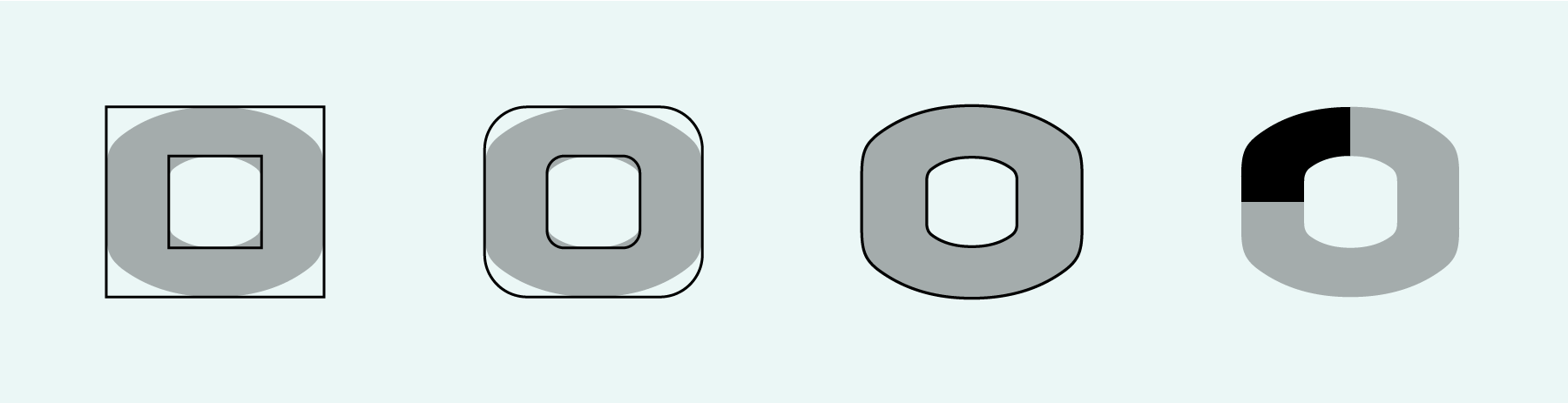
Graphico’s appearance is very wide. Its letterforms are industrial-looking; this feeling is enhanced by its characters’ square-sides. The typeface looks like the product of precision mechanics. It should be featured together with tech – either old tech like appliances or watches, or new tech like apps and laptop stands. The Graphico family offers six styles, ranging in weight from light to black. The black is really nice and chunky, and can easily be used as a stand-alone design. Each Graphico font includes 386 glyphs, and in terms of proportion, the Graphico design features short ascenders. While the descenders are not actually very long either, they look as if they might be – an interesting optical illusion. The fonts’ numerals are proportional lining figures.
Akhand Soft
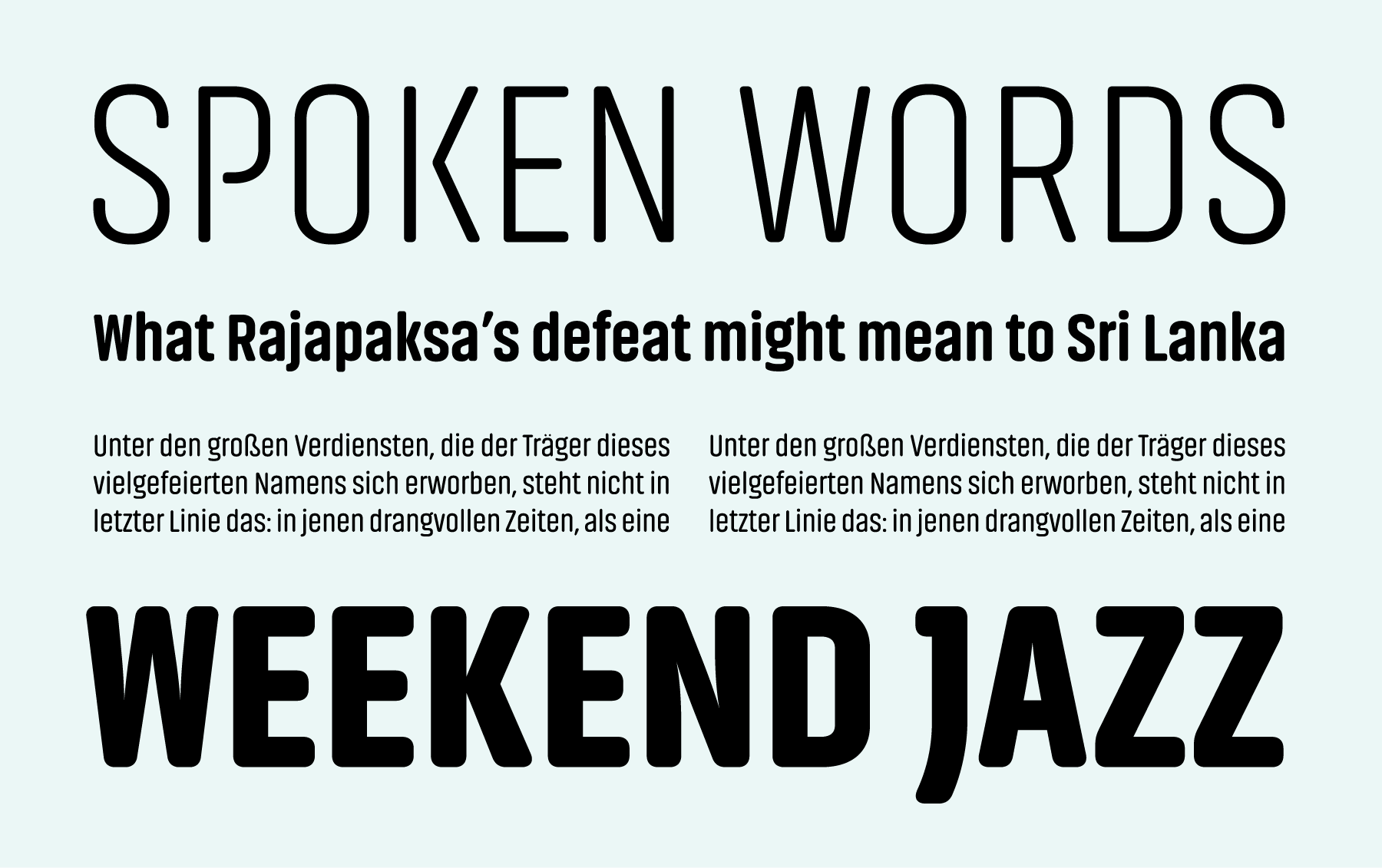
All of the corners of Akhand Soft’s characters have been rounded. This makes Akhand Soft a much more friendly and informal variant to the Akhand Latin family. Despite its having straight sides, not every aspect of Akhand Soft’s design is constructed. The curves in its modules, for instance, have all been optically corrected, removing the mechanical nature that could otherwise become too dominant. Akhand Soft’s modularity extends beyond the formal level, too: its design is systematic – not just regarding the number of languages and writing systems it supports, but also concerning the family’s weight compliments. Akhand Soft’s broad range of weights – eight weights, to be exact – makes combinations with a strong degree of contrast possible; the lightest and the heaviest styles may be mixed together to create powerful effects in your designs. Each font in the the family includes 390 glyphs.
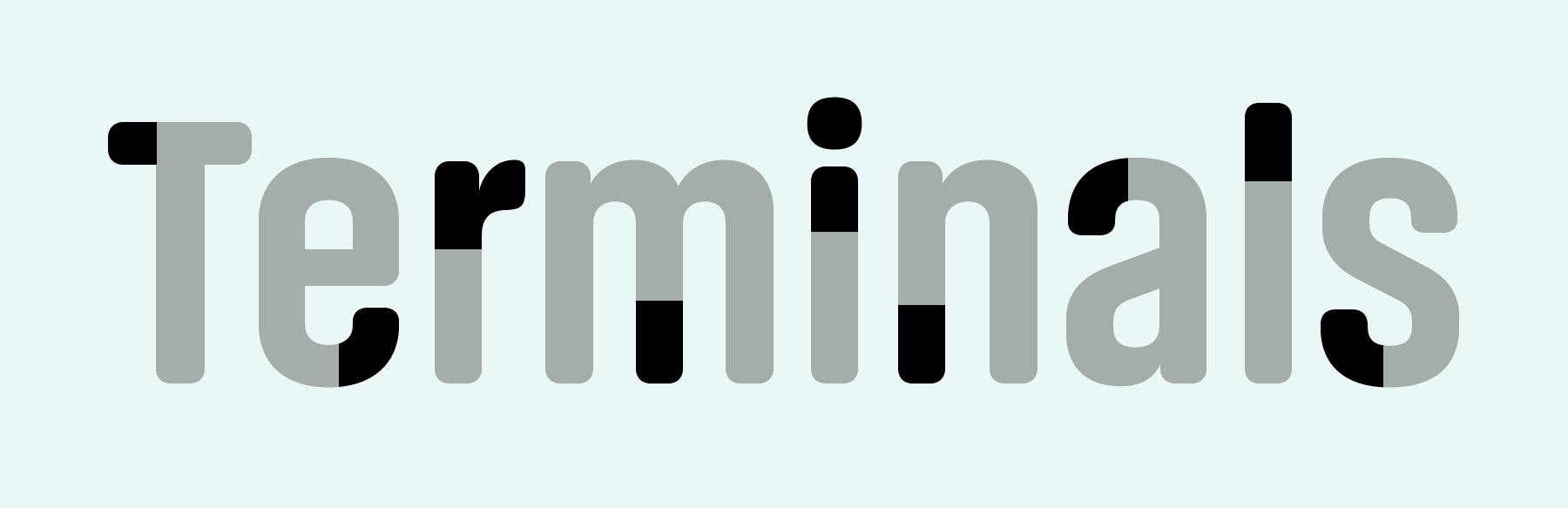
Akhand Soft is part of ITF’s Akhand super family, a series of compact monolinear fonts that currently supporting the Bengali, Devanagari, Latin, Malayalam and Tamil scripts. While the shapes used in each of the Akhand subfamilies are script-specific, they all share a similar dynamic. Elements that are typically full and sweeping have been made compact, and their verticals have been flattened. This ‘straightening out’ gives text set in the typefaces a streamlined look. The Akhand typefaces’ modular forms bear a strong commonality to each other, without strings of characters becoming repetitive in text.
Like Akhand Latin, Akhand Soft was designed by Satya Rajpurohit in Ahmedabad. Graphico is a collaborative work created by a trio of Paris-based designers: Alisa Nowak, Julie Soudanne, and Jean-Baptiste Morizot.